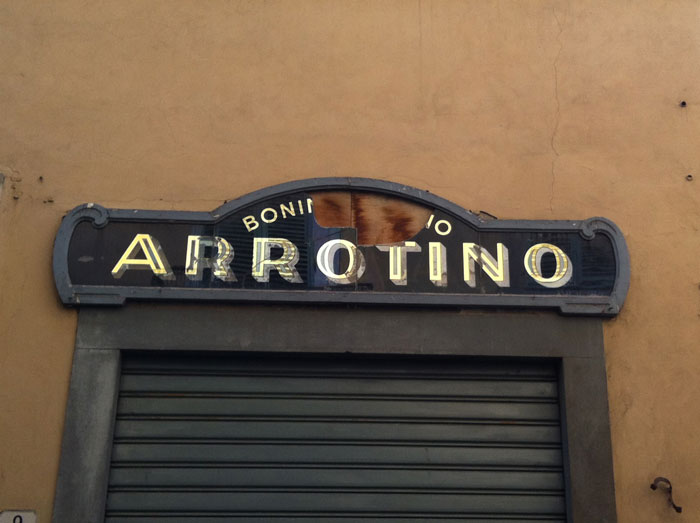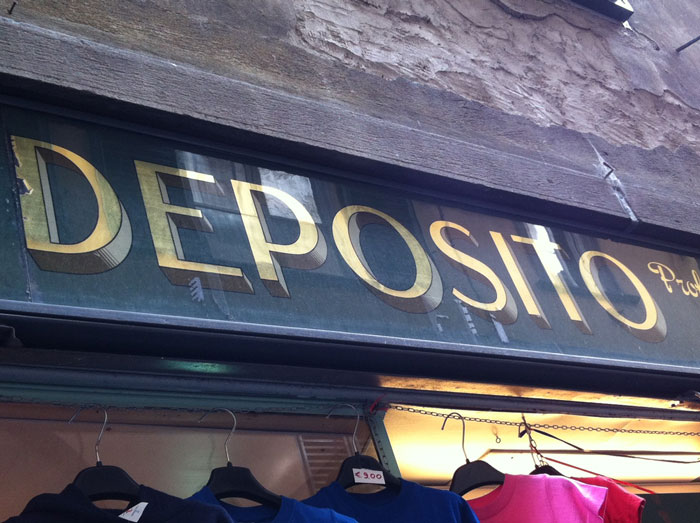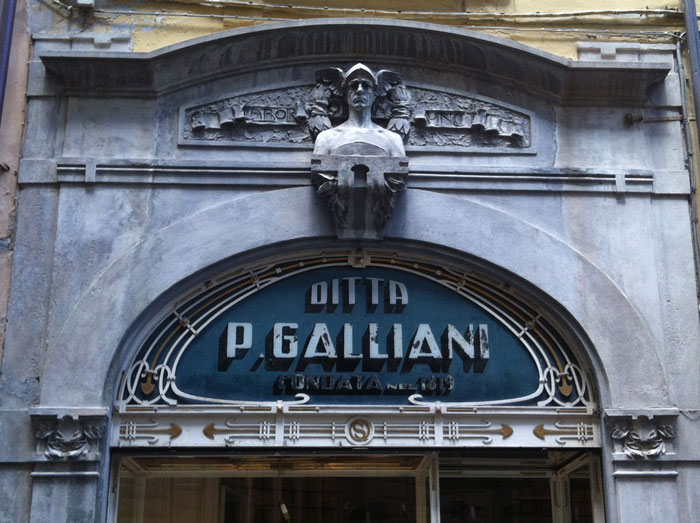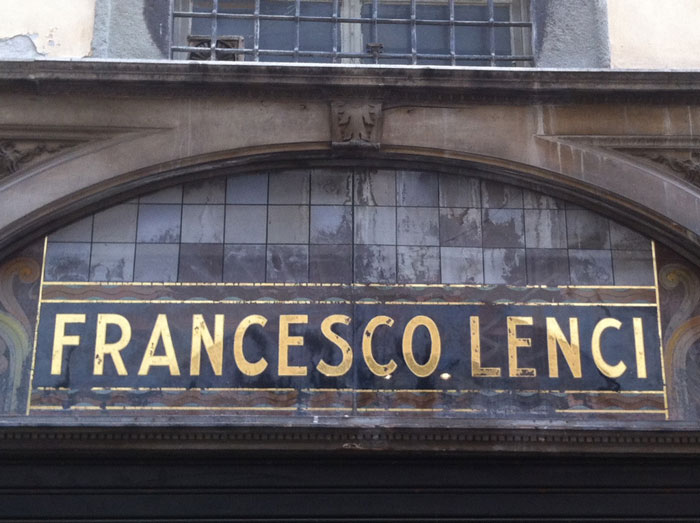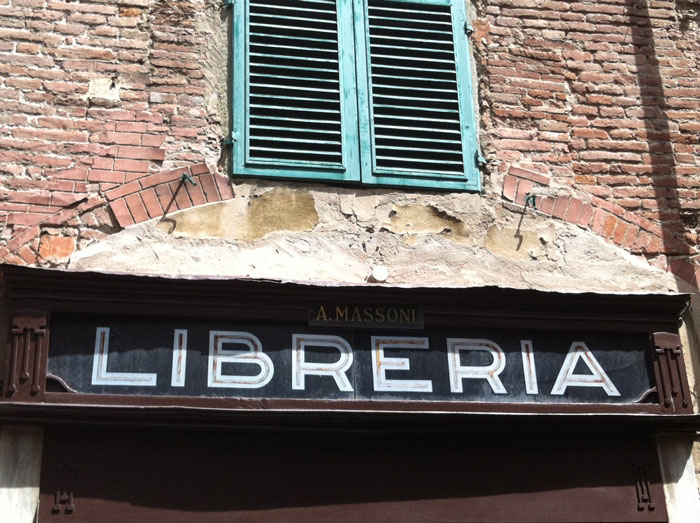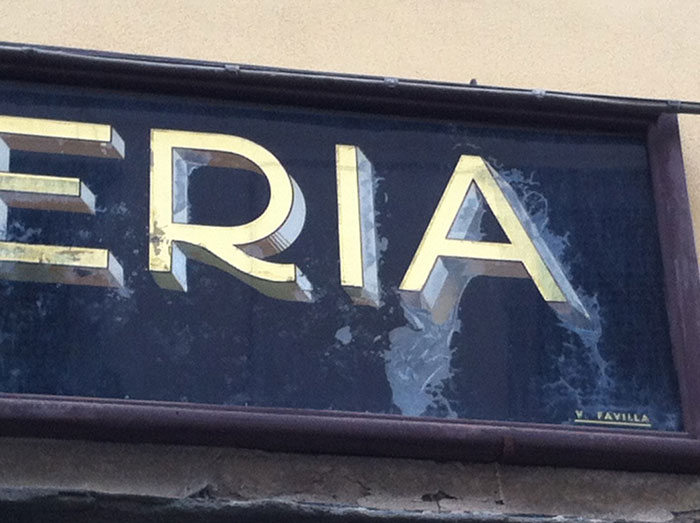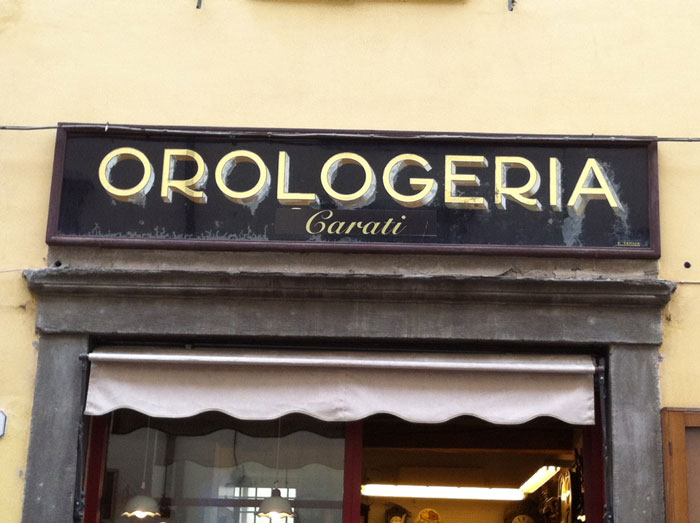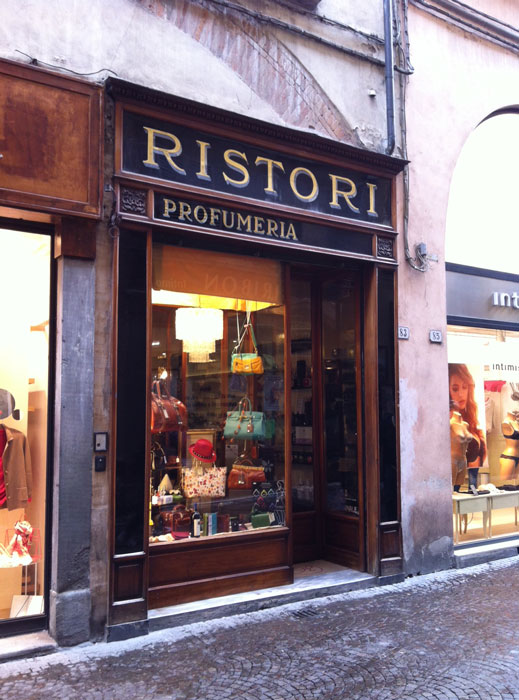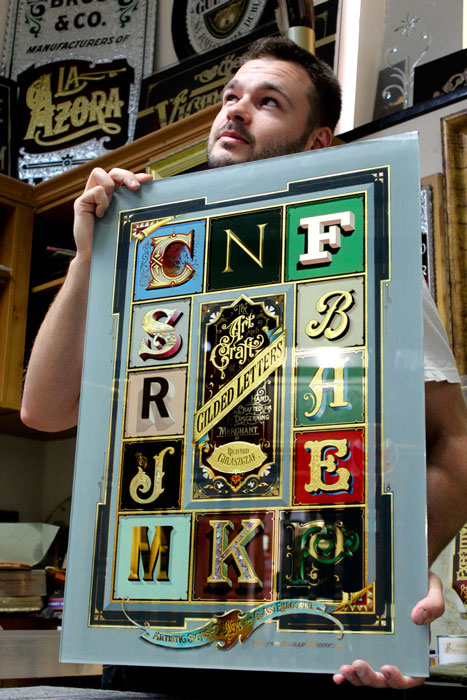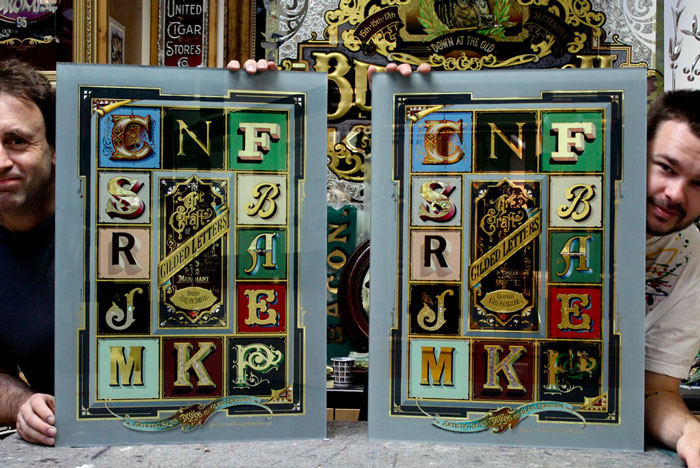
Noel Weber - David Smith Glass - Gilding workshop in Boise.
Hi everyone. Noel and I would like to announce that we are teaching a 3 day gilding workshop in Boise , Idaho. The dates are the 1st 2nd and 3rd of May.
Students will make two reverse gilded glass panels with a combination of many decorative reverse glass techniques. We will be covering design ...
Re: World Wide Gilding Workshop
Hi Kevin. John and myself along with Dean will be covering alot of techniques.
Screen Printing, acid etching (mica stipple) ,mother of pearl inlay, blending gold leaf matt finish and water gild finish,blended shaded and finger blending. The piece will contain 12crt white gold 18crt and 23 crt. We ...
Thank you for saying , you certainly have a great eye for design and technique , love to what you will be doing in another 2 years time! . I like the subtle shades and the way the light is cast, did you design them as well? lovely scroll work . I noticed the leaf is not a mirror finish ...